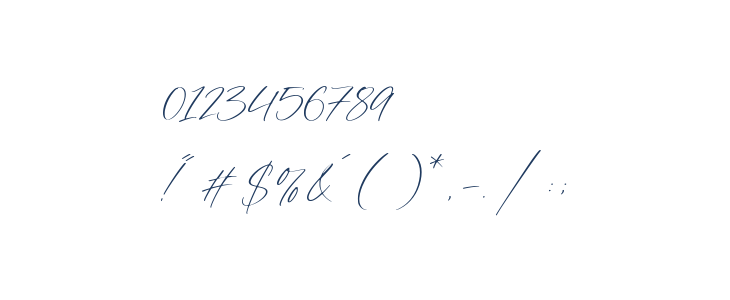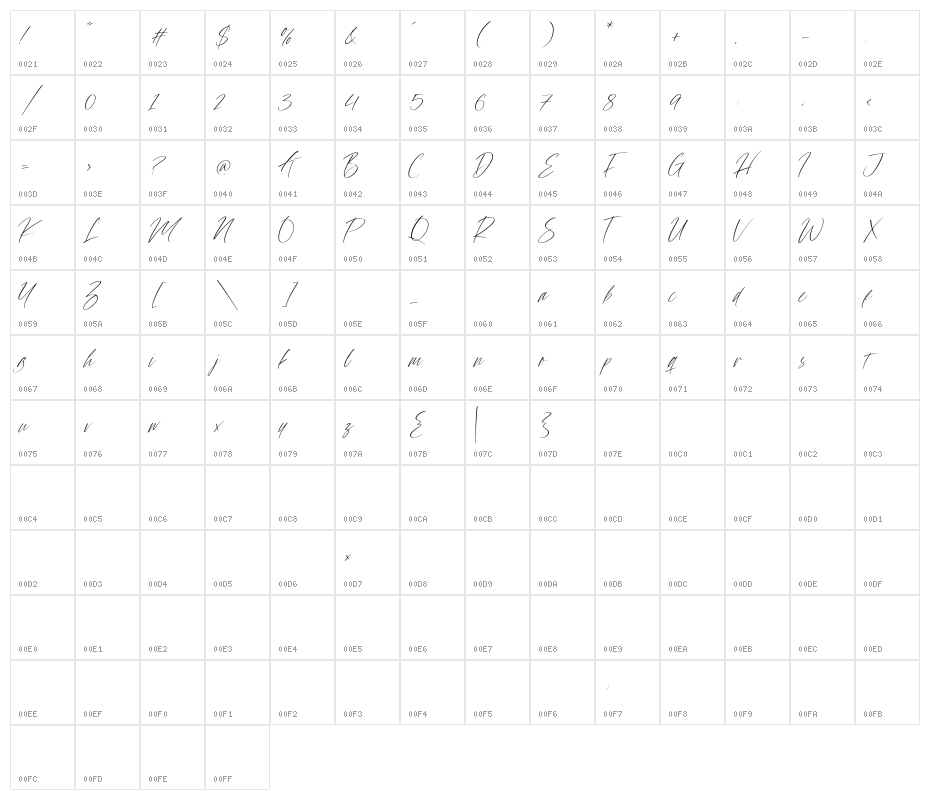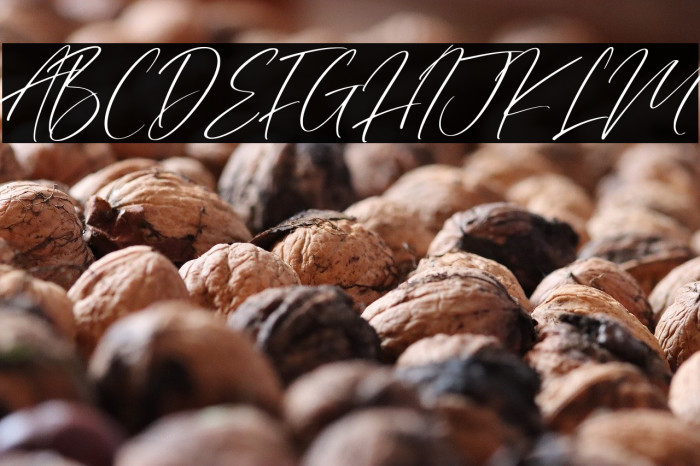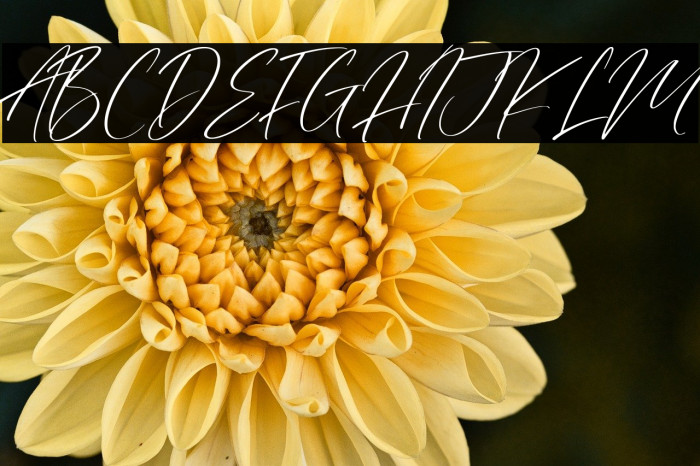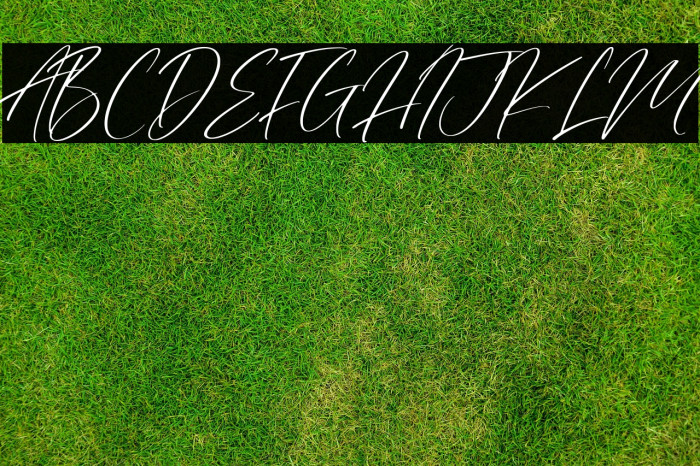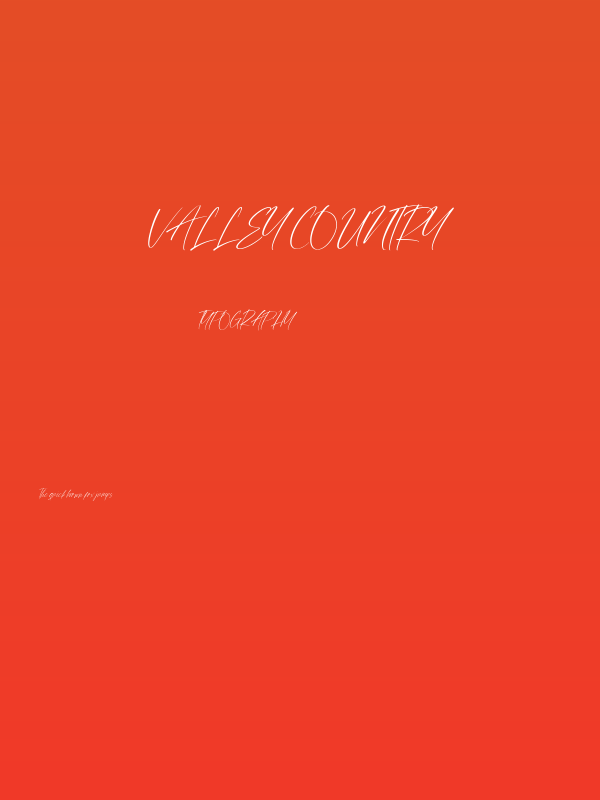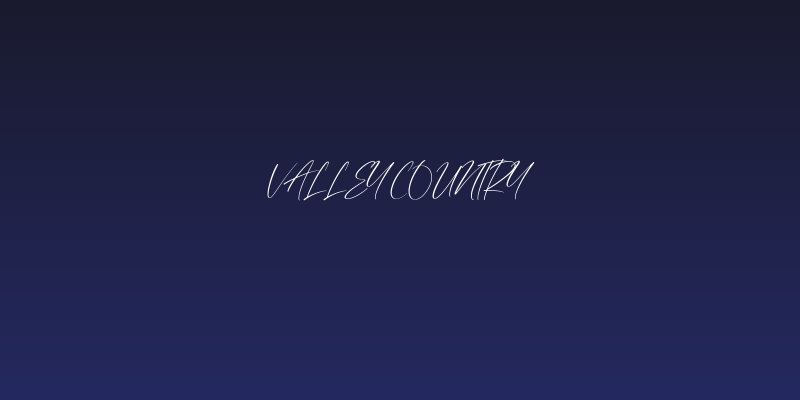
Valley Country Font
Valley Country Description
This font exudes a dynamic and elegant script style, characterized by its flowing, cursive letterforms. The strokes are smooth and fluid, with a natural handwritten appearance that conveys a sense of sophistication and grace. The uppercase letters are bold and sweeping, while the lowercase letters maintain a consistent rhythm and balance. The numerals and special characters are crafted with the same attention to detail, ensuring a cohesive look across all elements. This font is perfect for projects that require a personal touch, such as invitations, greeting cards, and branding materials.
| Proposed Projects | Ideal for invitations, greeting cards, branding, and any project needing a personal touch. |